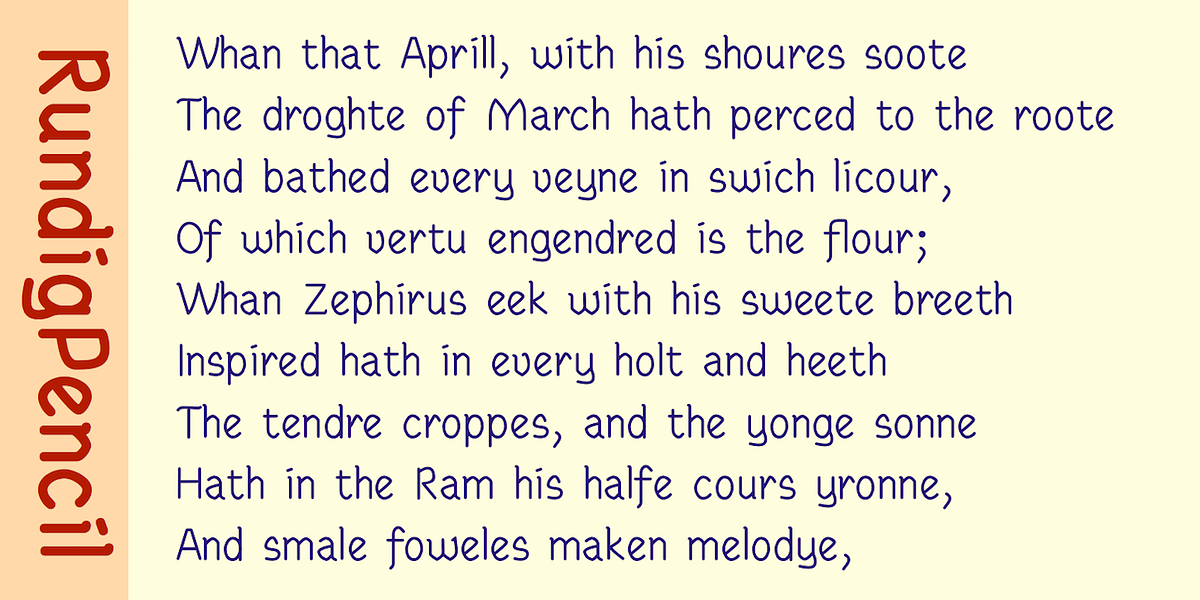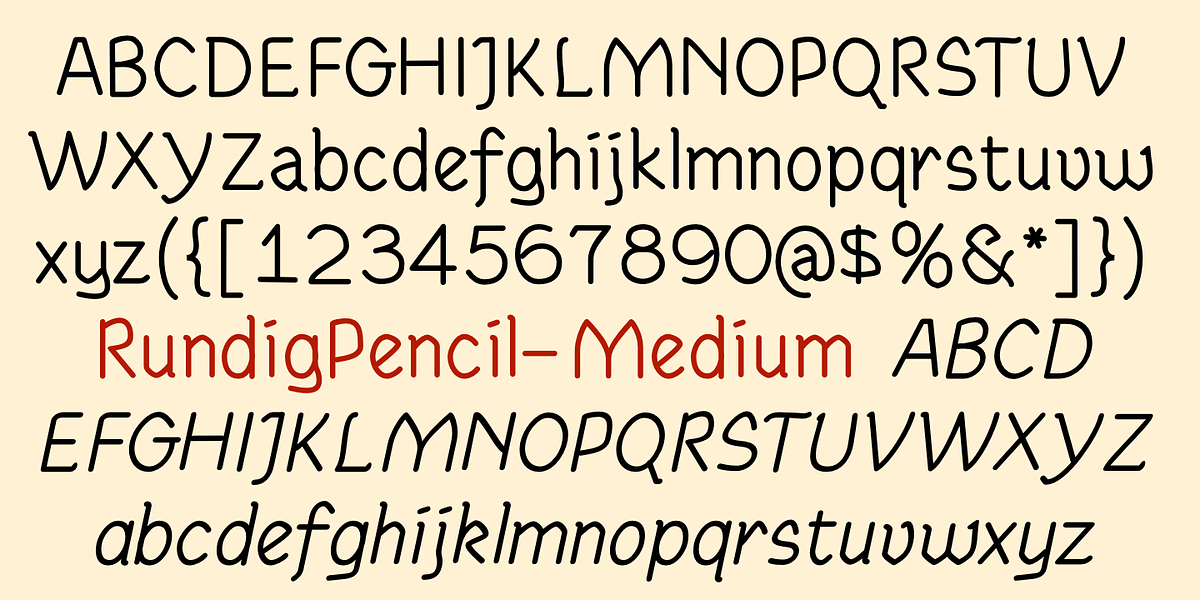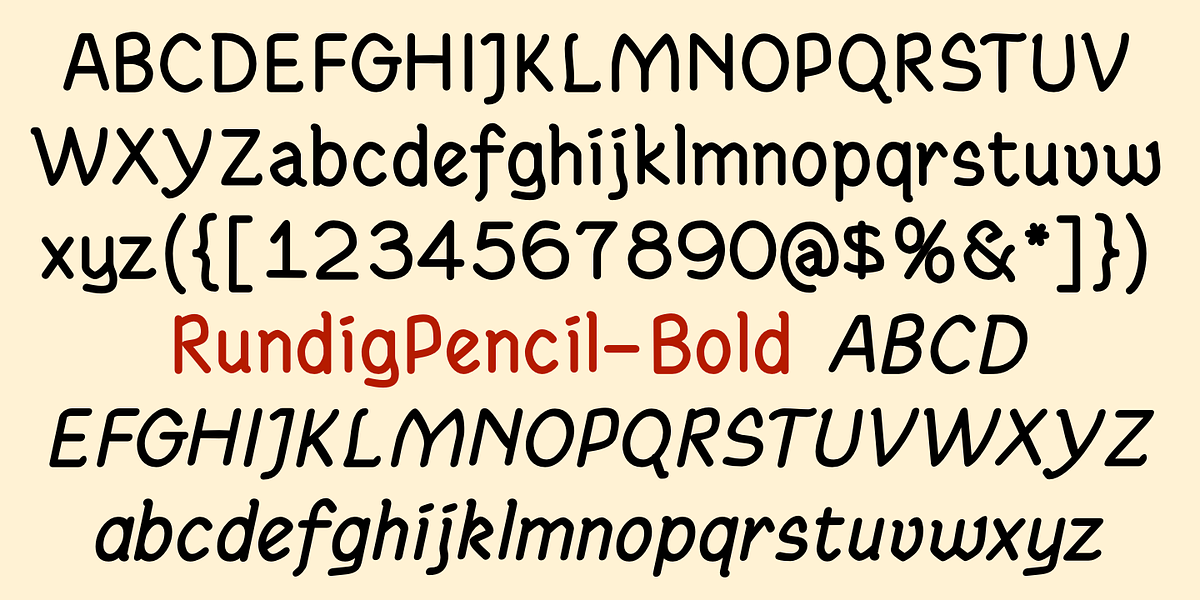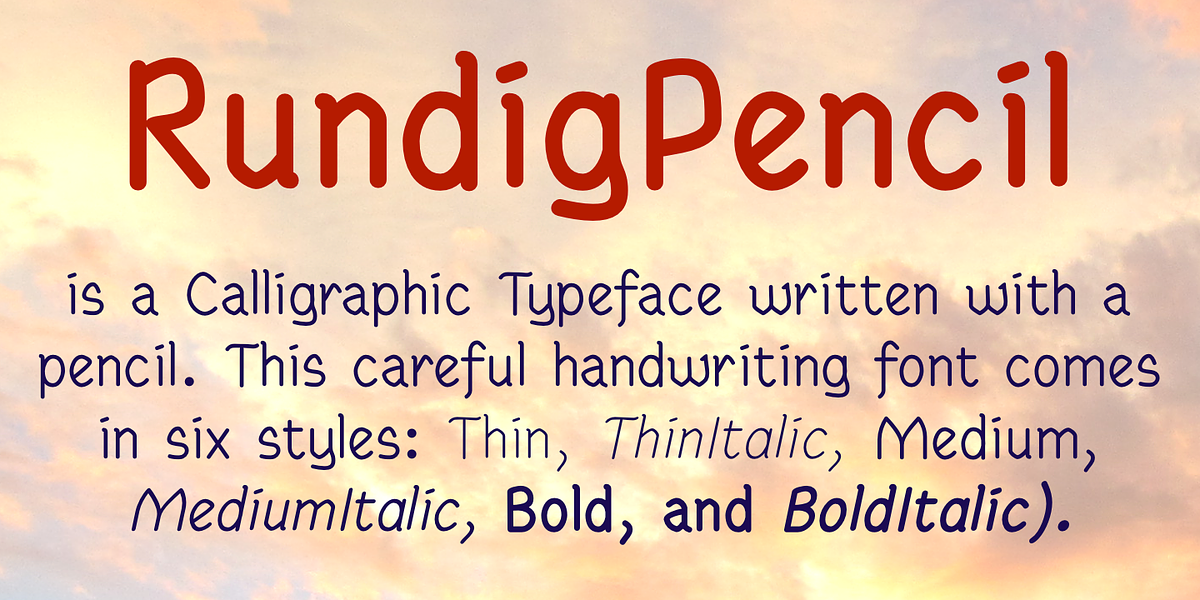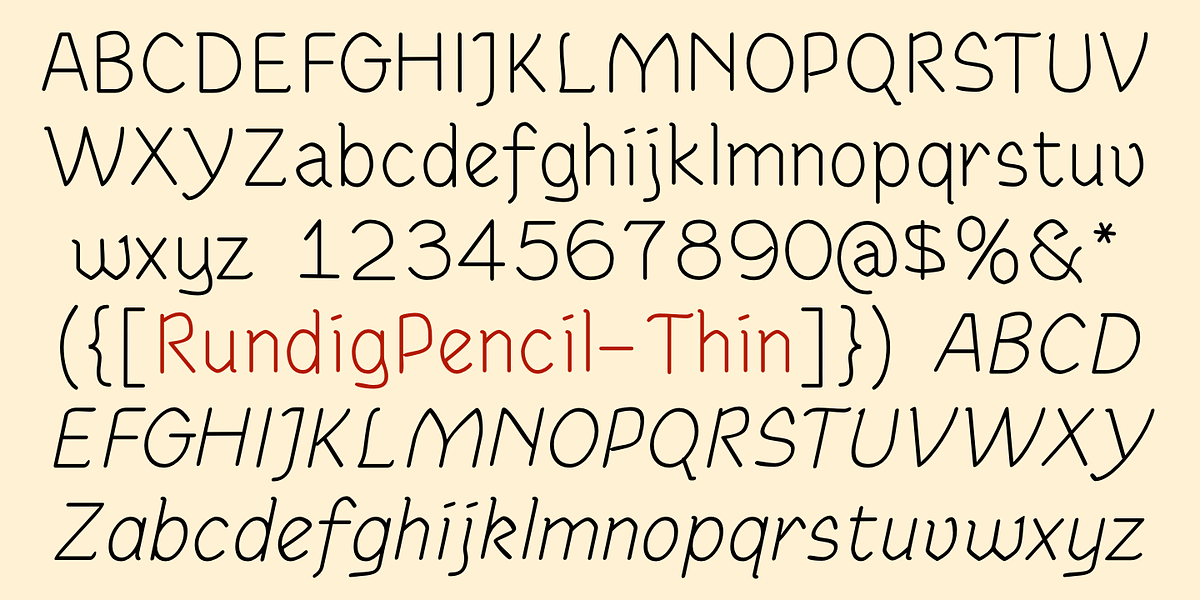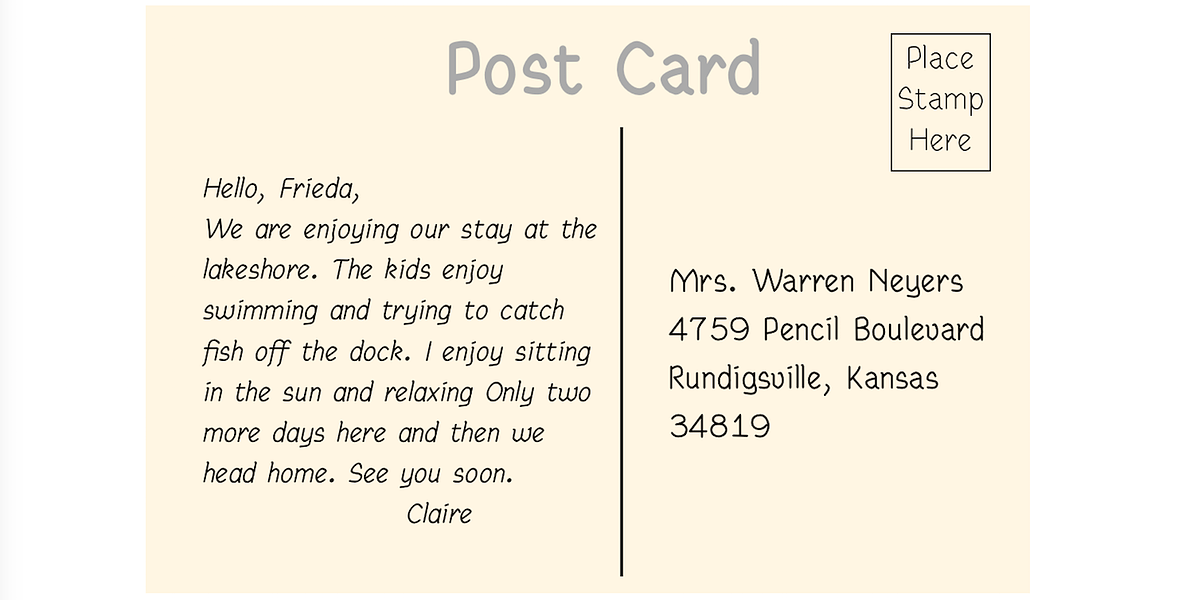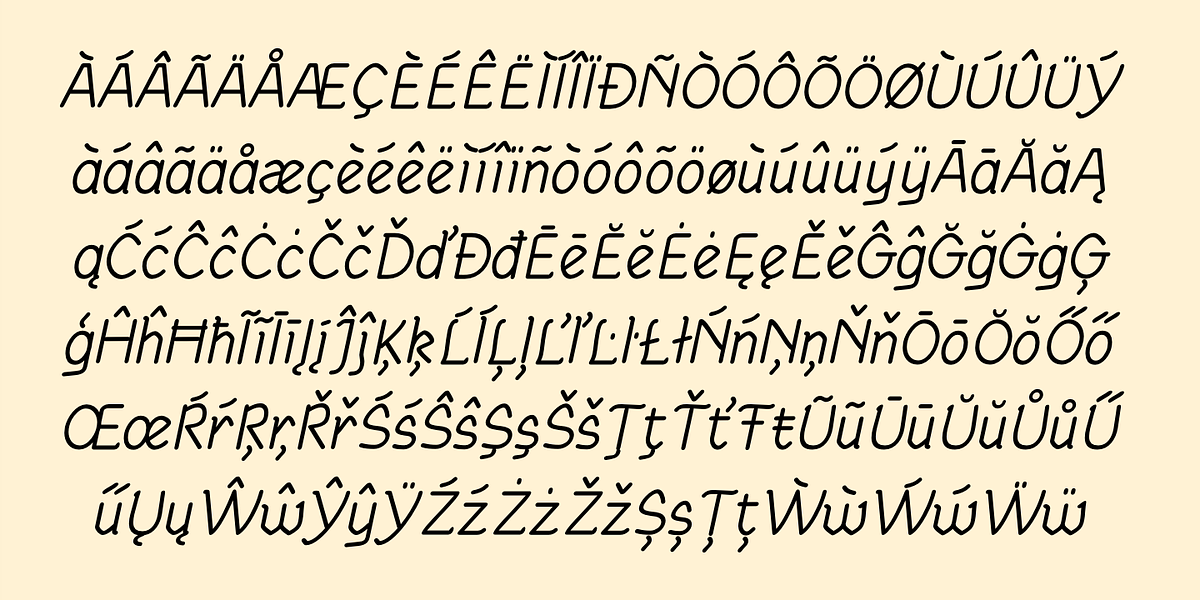
RundigPencil
RundigPencil is a casual hand script font characterized by its neat and rigidly upright appearance. It offers three weights, each with corresponding italic versions, allowing for versatility in handwritten design applications.